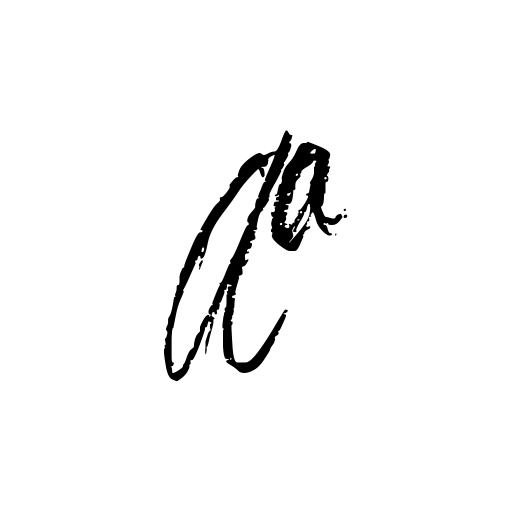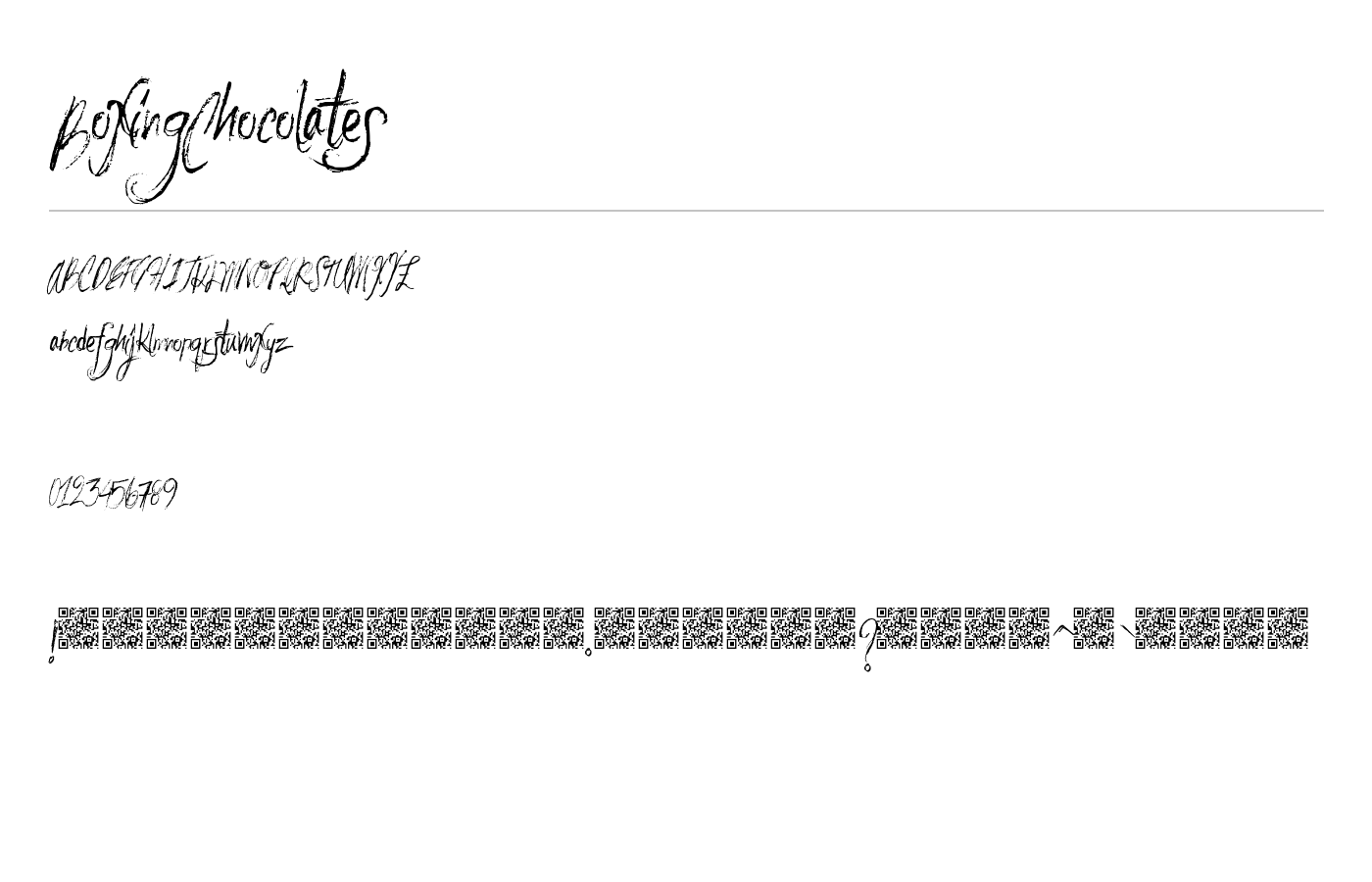
BoxingChocolates is an expressive and highly stylized handwritten font with thin, sharp strokes and a dynamic, brush-like texture. Its narrow, tall letterforms and intricate swashes give it an edgy, artistic feel, making it ideal for creative branding, posters, or expressive headlines where a unique, personal touch is desired. This font adds a dramatic, energetic vibe perfect for projects that want to stand out with raw, handcrafted charm.
BoxingChocolates Font
About BoxingChocolates Font